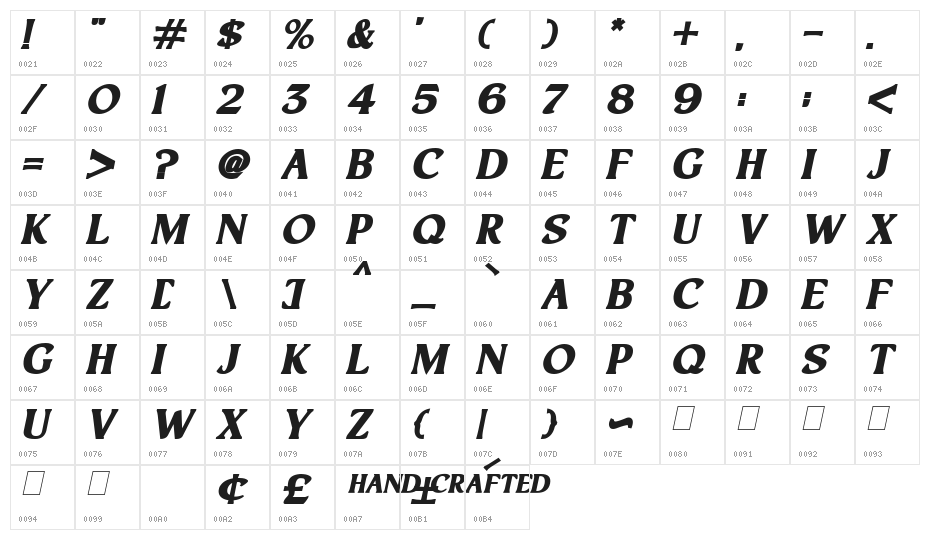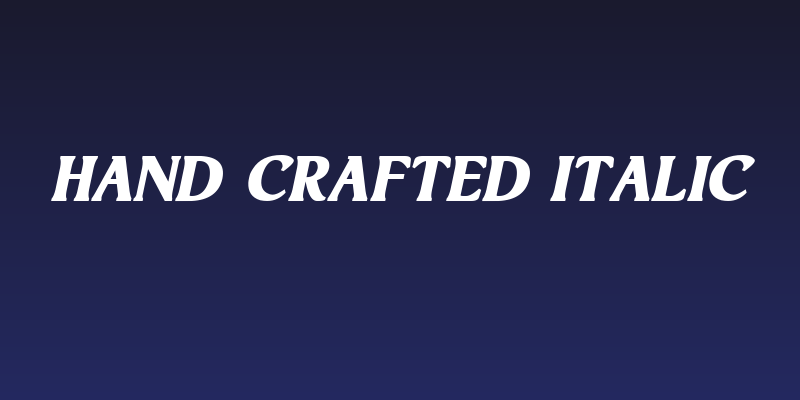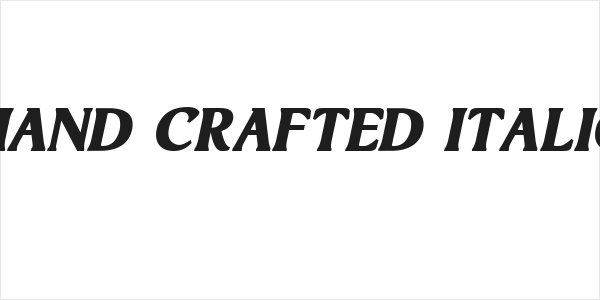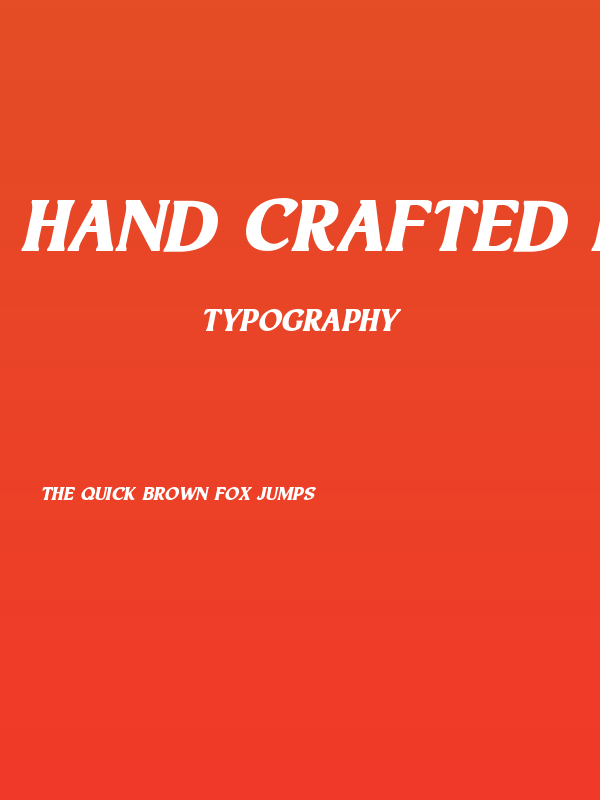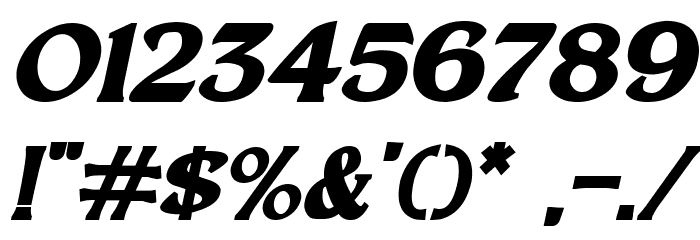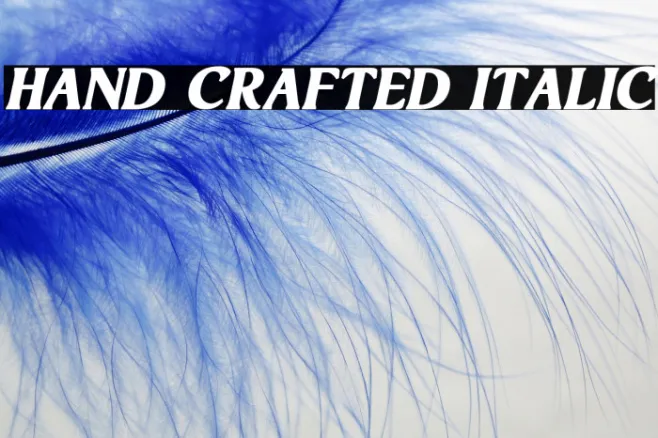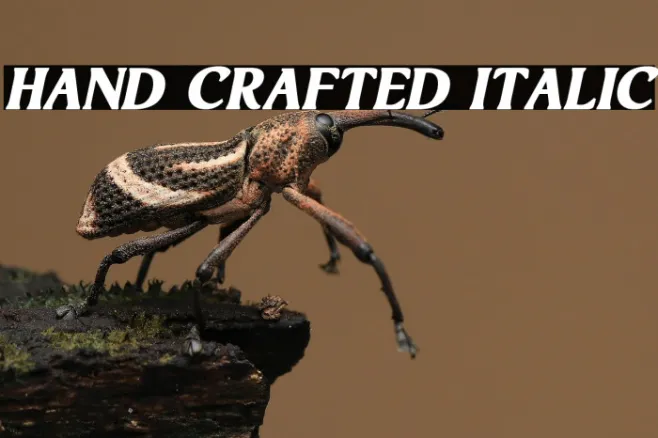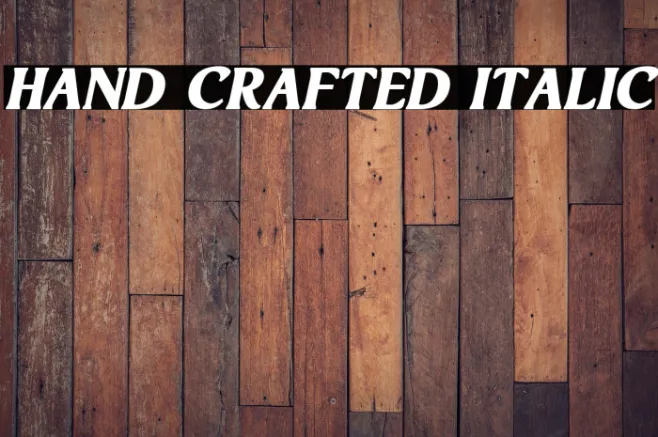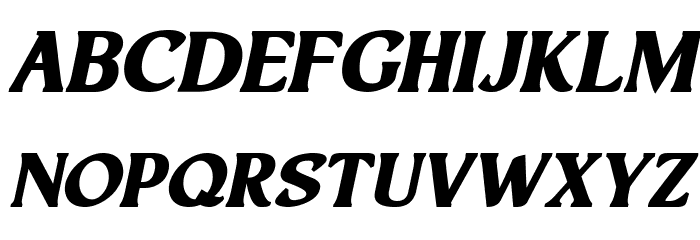
Hand Crafted Italic Font
Hand Crafted Italic Description
This font exudes a bold and dynamic presence with its italicized and hand-crafted style. The characters are robust and slightly condensed, giving a sense of movement and urgency. The strokes are thick, providing high contrast and a strong visual impact. Each letter is meticulously designed to maintain a consistent slant, enhancing the overall fluidity and elegance. The numbers and special characters follow the same stylistic cues, ensuring uniformity across all elements. This font is ideal for projects that require a touch of sophistication and flair, such as branding, advertising, and editorial design.